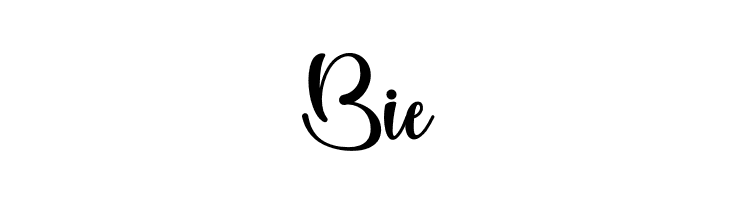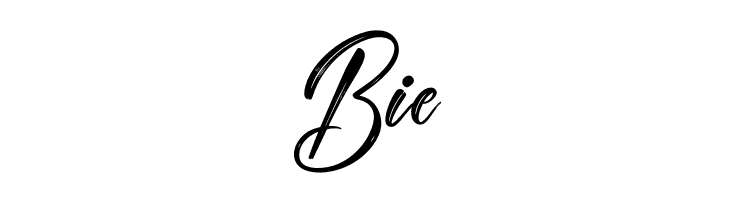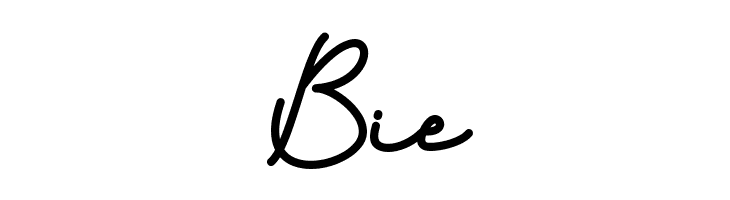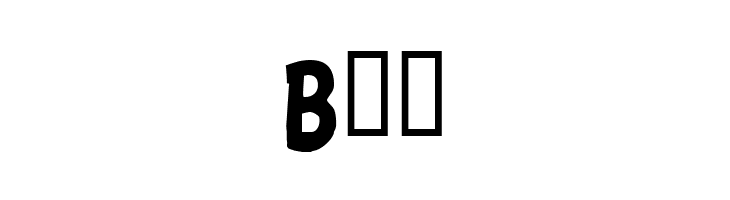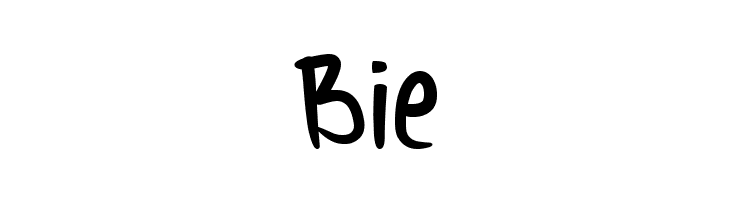
• MOST FAMOUS
A bold, geometric font with strong, block-like characters.
• Mostlove Beauty
( Fonts by Fontherapy Studio )
Casual handwritten script font.
• MOTHER FATHER
• Motivota
( 538Fonts - storychoice.wix.com/homepage )
A bold, dynamic font with a slight italic slant, perfect for impactful designs.
• Motivota Combo
• MOUNTAIN Dew
A playful font made of coffee bean-like shapes, offering a textured and unique appearance.
• Mountecarlo
A graceful script font with flowing, interconnected letters and a sophisticated style.
• Movie Script Ending
A flowing, cursive script font with elegant swashes and a modern twist.
• Moycen
A modern, high-contrast stencil-like font with angular cuts.
• MTF 100
( MTF - Miss Tiina - misstiina.com )
A playful, handwritten font with a casual and whimsical style.
• MTF 100 Dings
( Fonts by Miss Tiina Fonts )
A decorative dingbat set with floral and heart motifs.
• MTF Birthday Bash Doodles
( MTF - Miss Tiina - misstiina.com )
A playful, doodle-style font with birthday-themed illustrations.
• MTF Elegance
A whimsical and decorative font with intricate curls and loops.
• MTF Hoo Rah
A playful, casual handwritten font with irregular, whimsical strokes.
• MTF Jumpin' Jack
A playful, bold font with irregular, hand-drawn letterforms.
• MTF Mikayla
A playful, handwritten font with fluid strokes and a casual style.
• MTF Mikayla Print